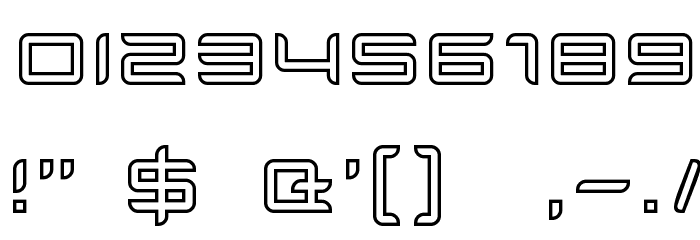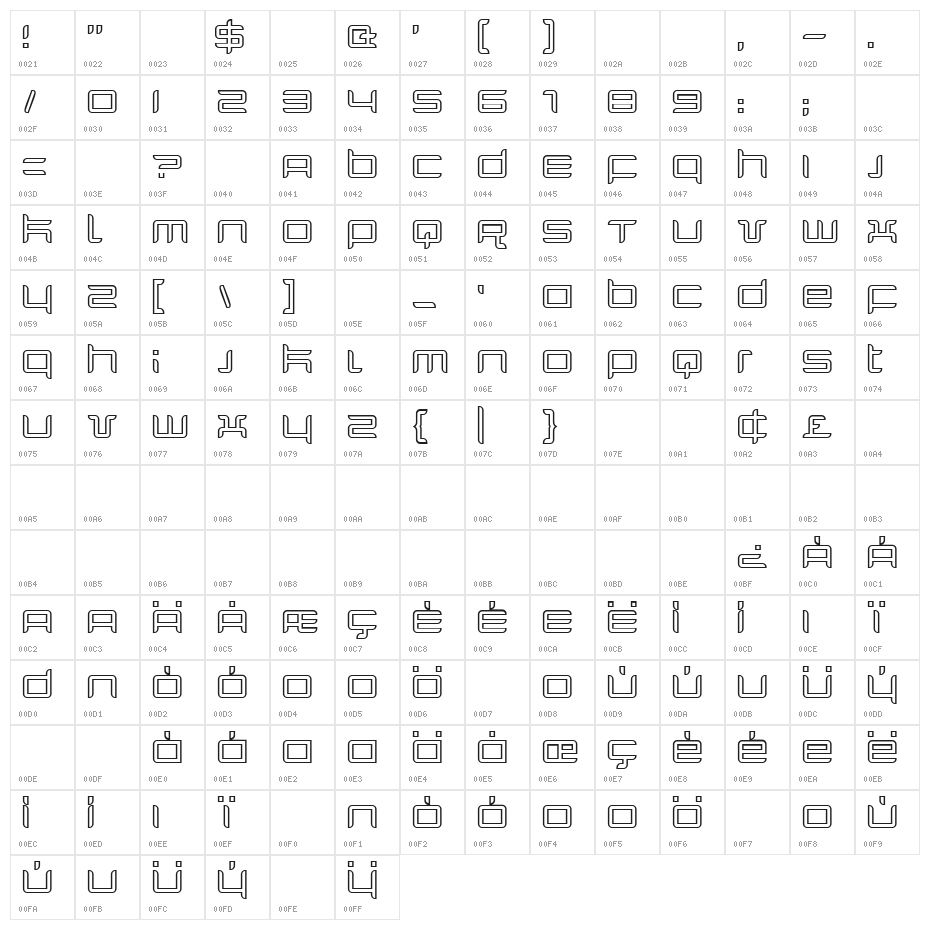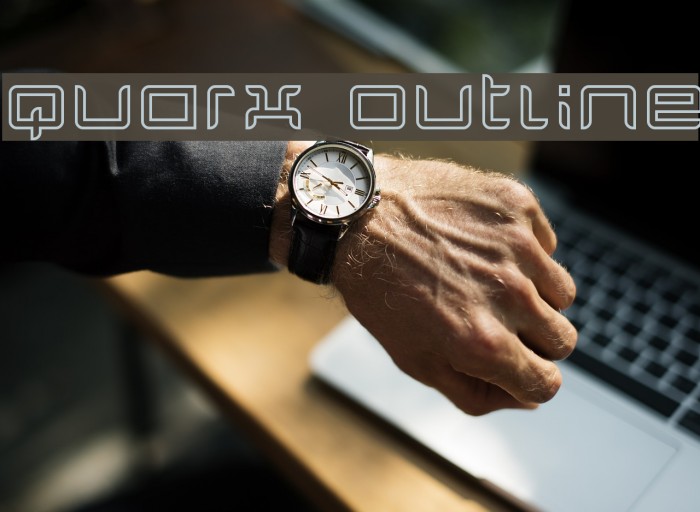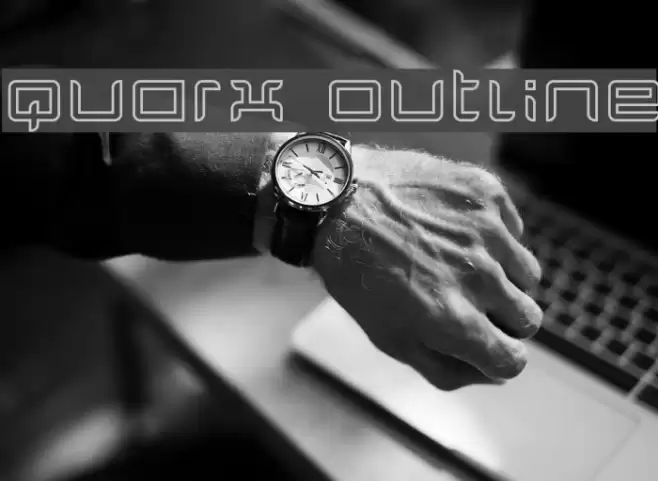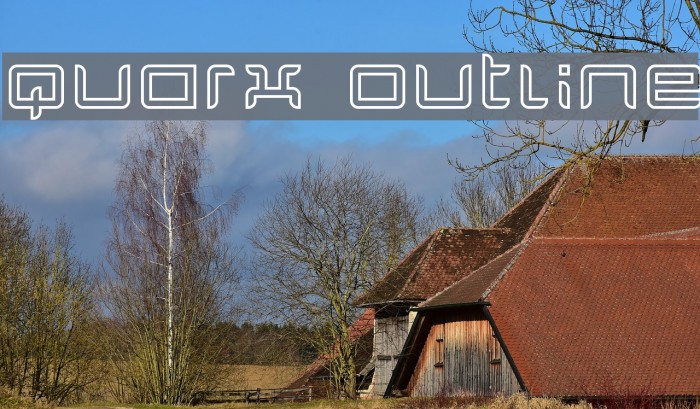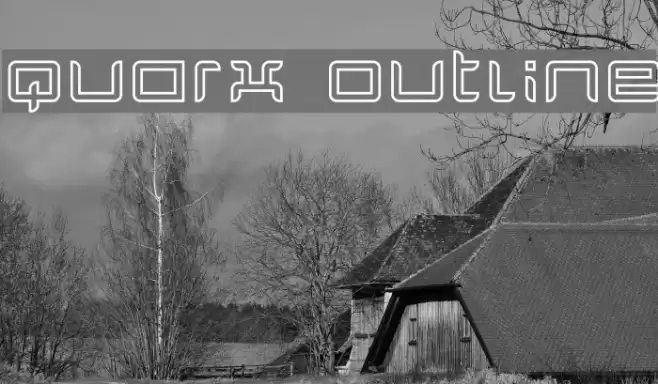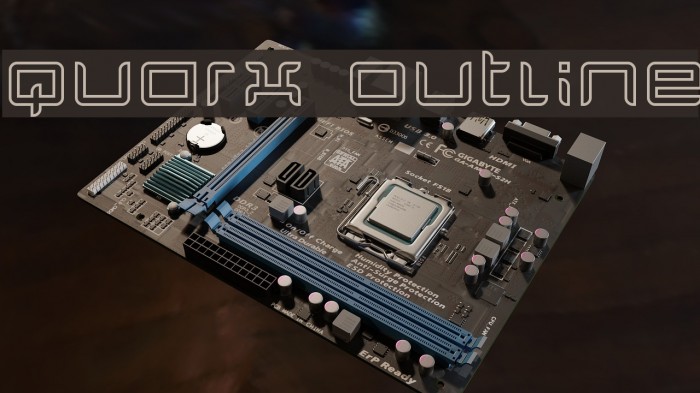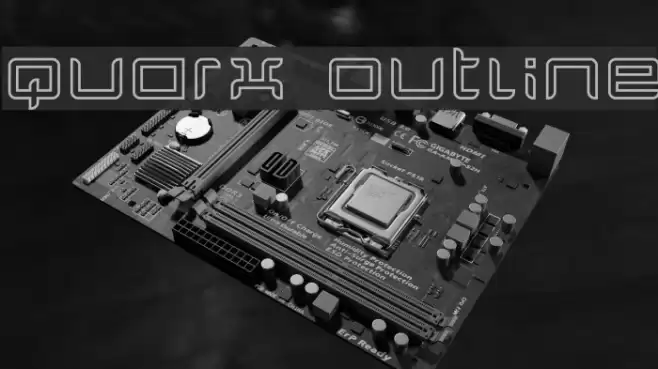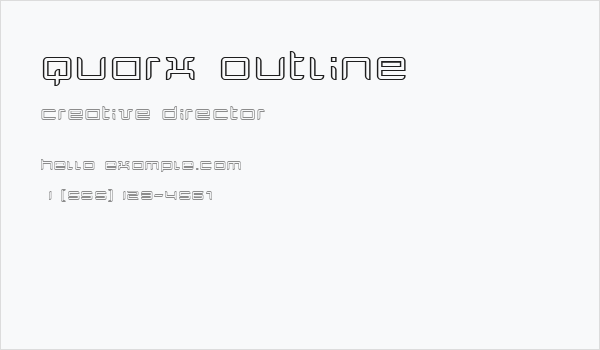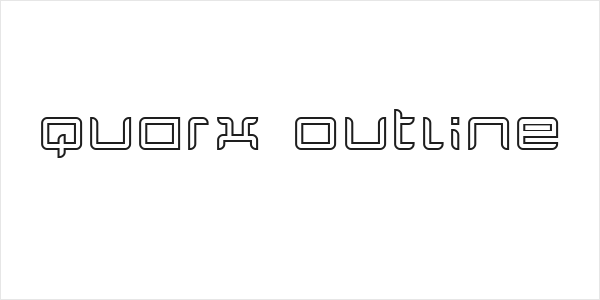
Quarx Outline Font
Quarx Outline Description
This font features a distinct outline style that gives it a futuristic and digital appearance. The characters are formed with a consistent line weight, creating a hollow effect that emphasizes the geometric shapes of each letter. The uppercase and lowercase letters maintain a uniform height, contributing to a cohesive and structured look. The numerals and special characters follow the same design principles, ensuring a seamless integration across different uses. The overall design is clean and modern, making it suitable for projects that require a tech-savvy or contemporary aesthetic.
| Use Case | Logos, Headlines, Digital interfaces |
| Proposed Projects | Ideal for technology branding, digital interfaces, sci-fi themed designs, and modern advertising. |